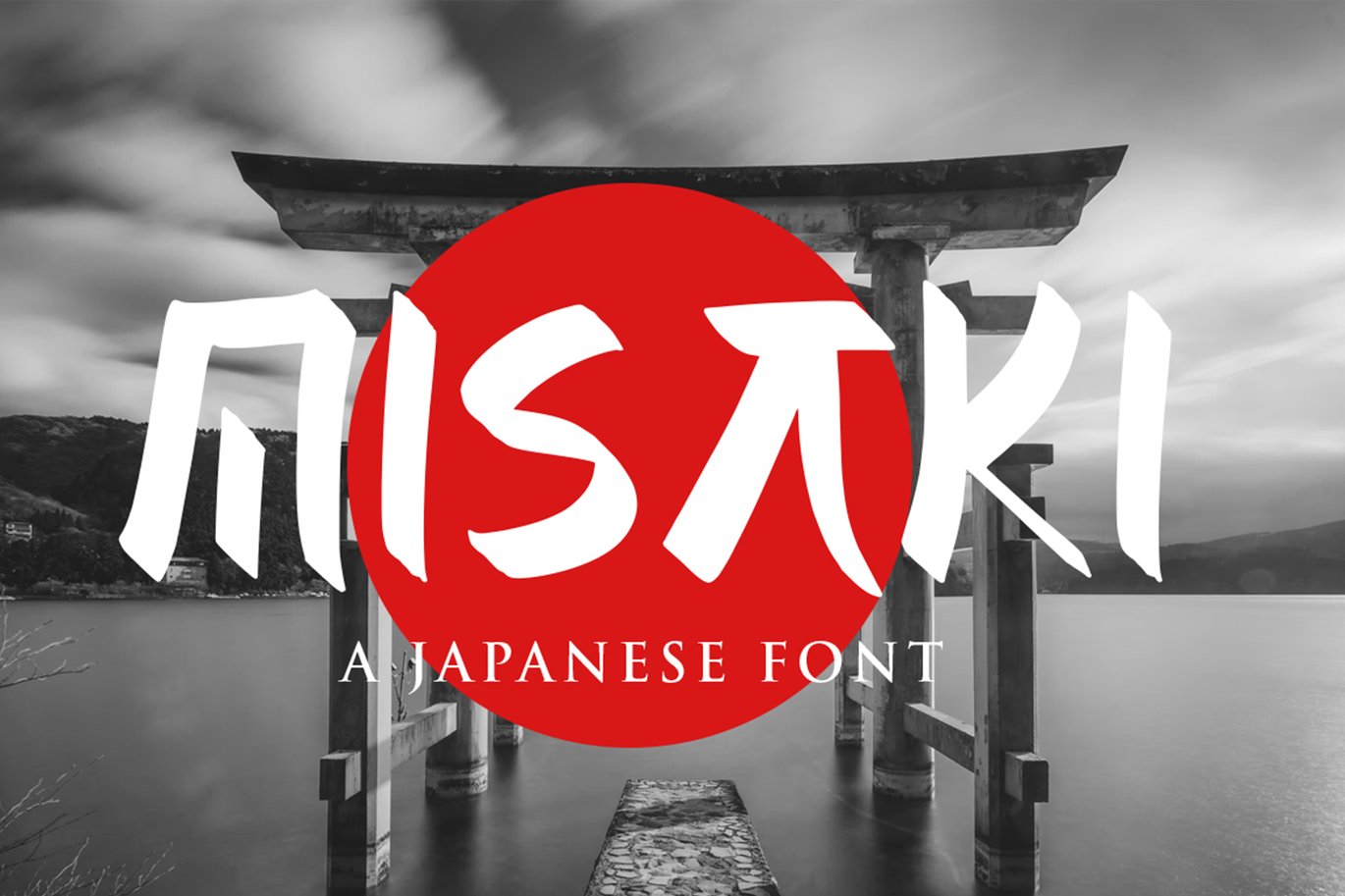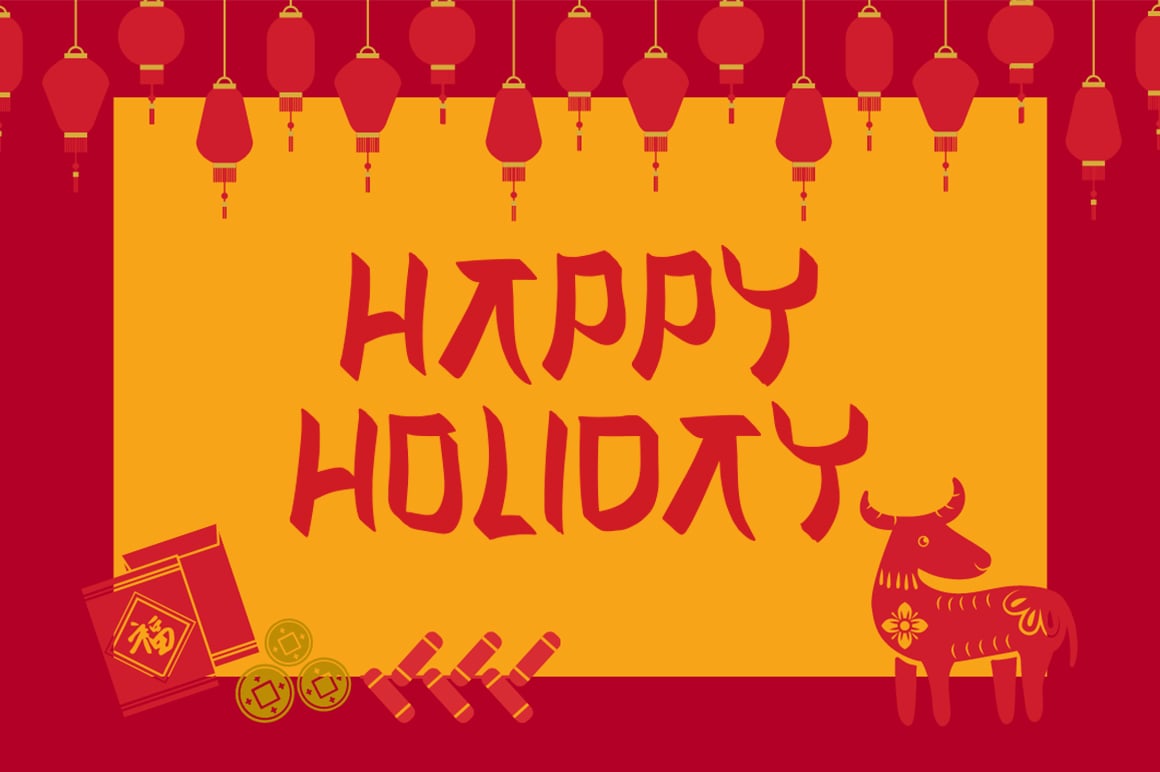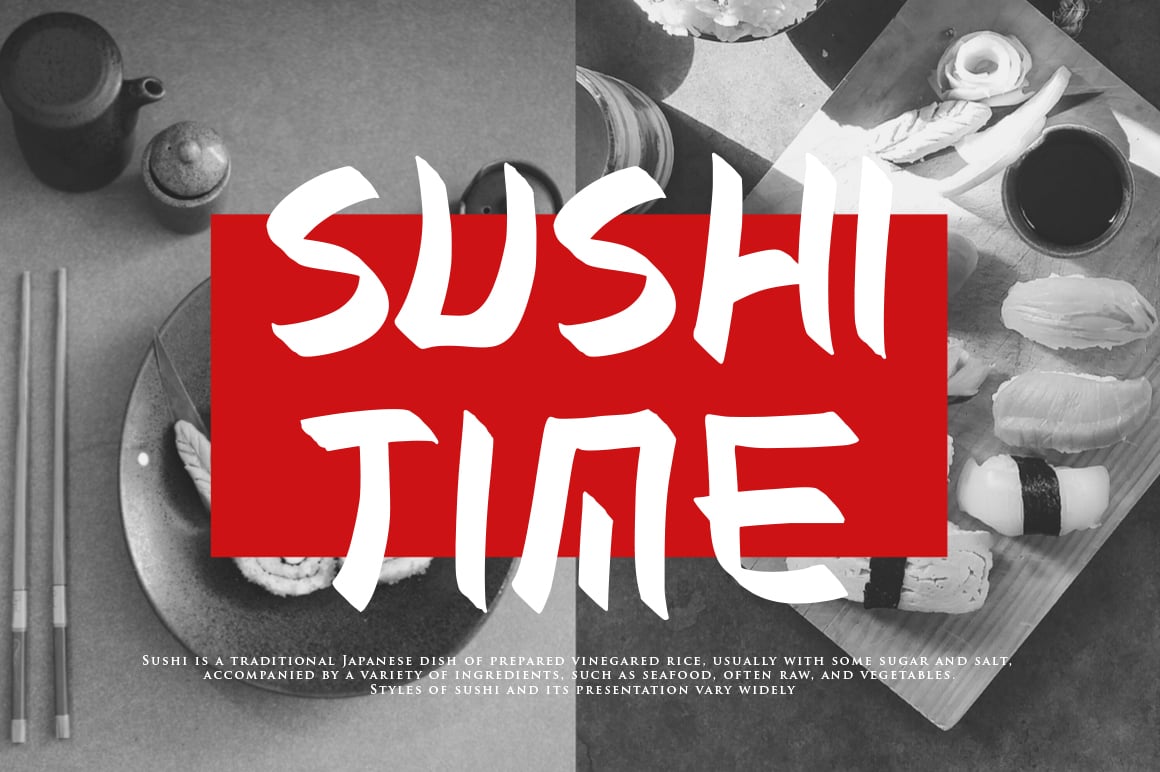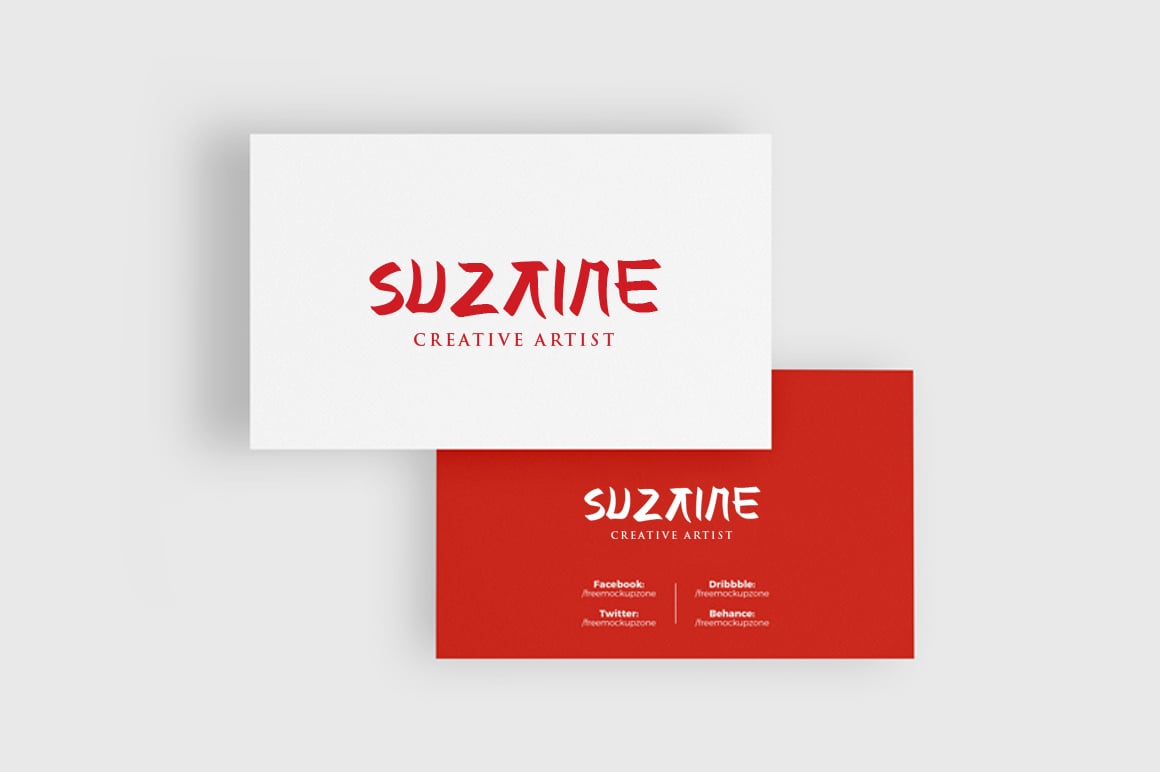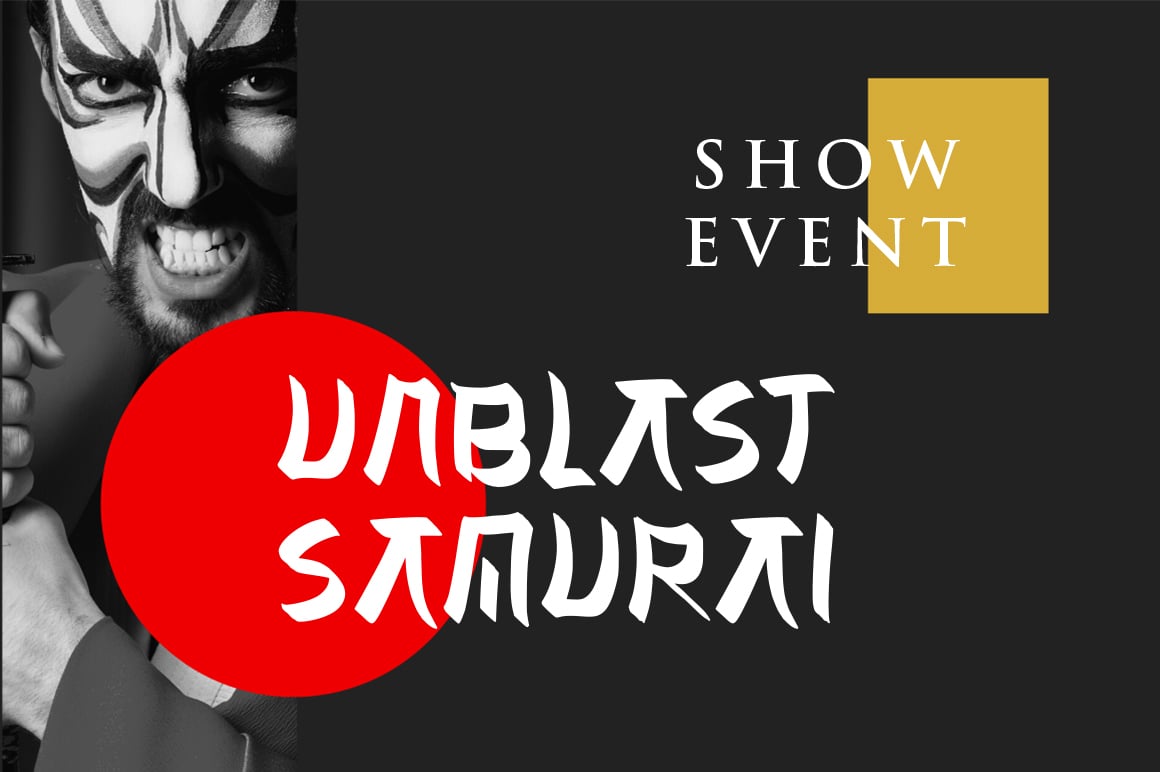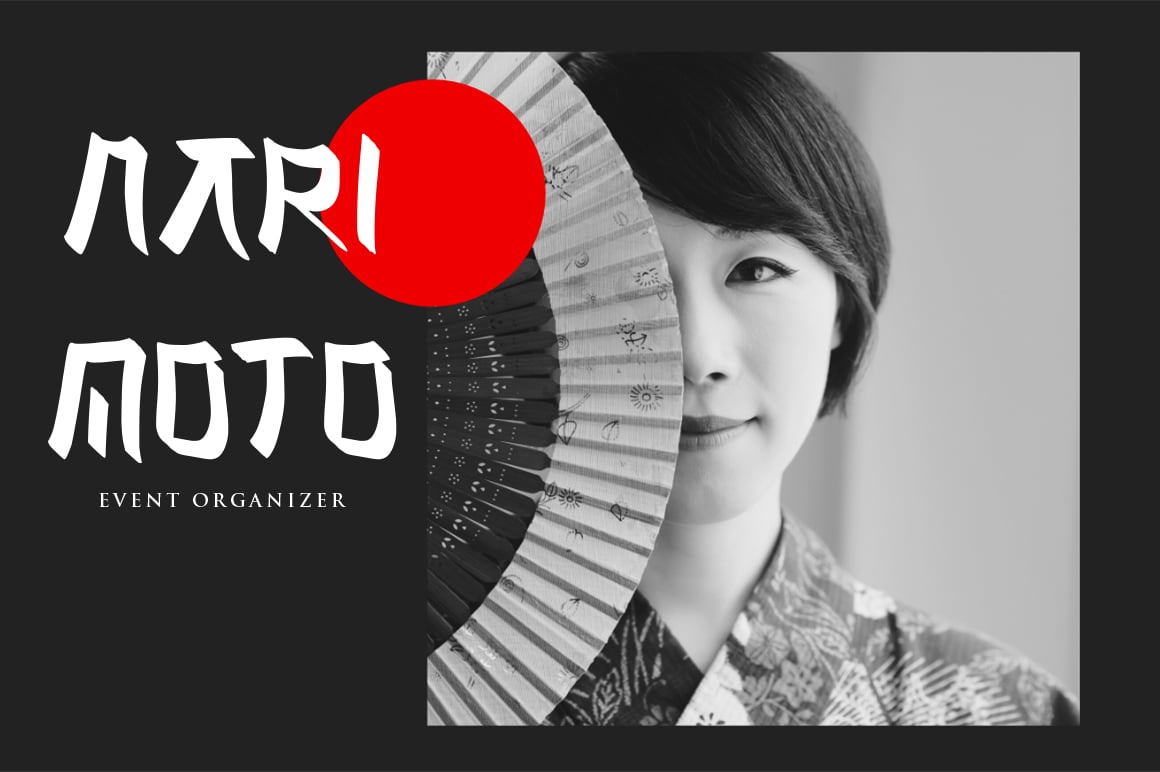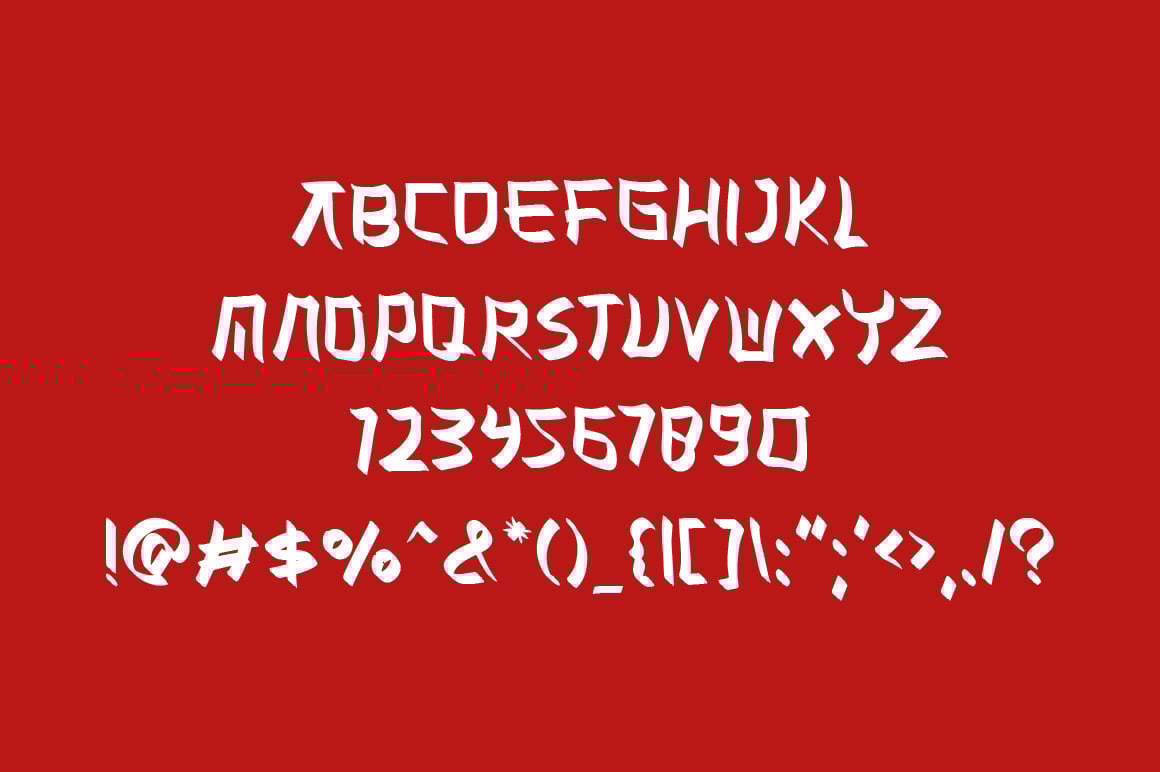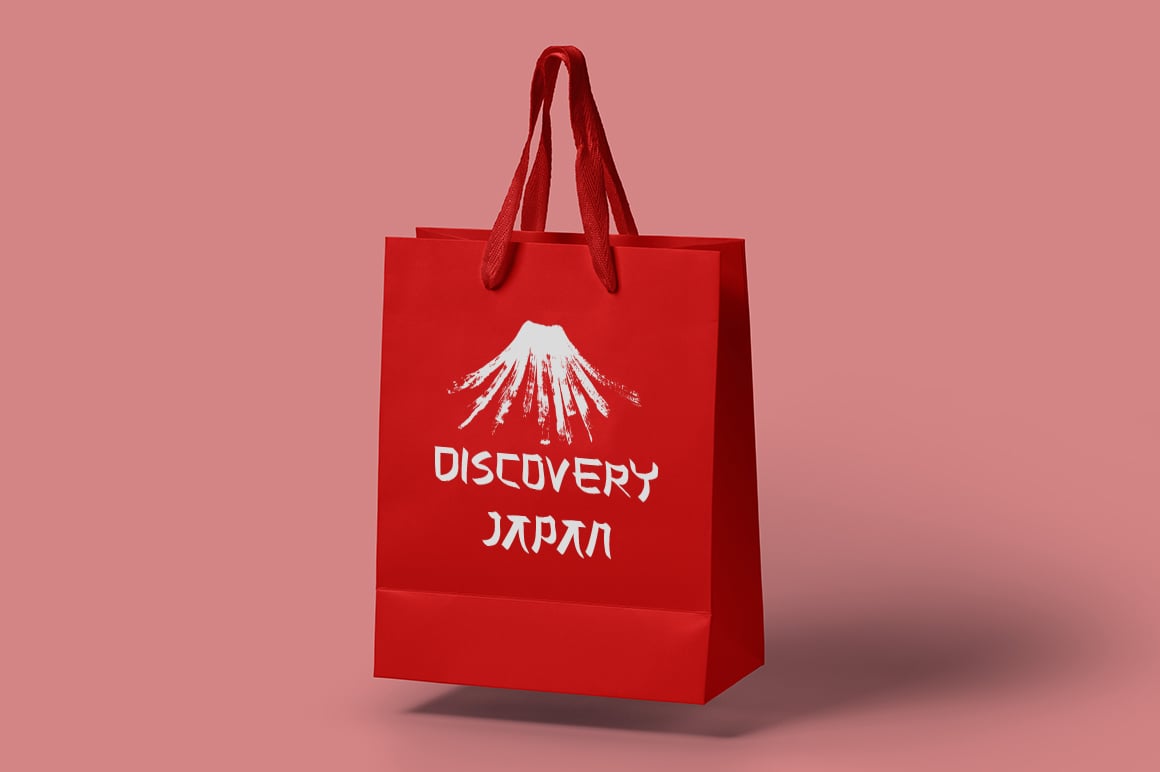
Misaki Japanese Font
Misaki is a simple Japanese-inspired display font. It has great readability and will add a striking touch to any design! It will look awesome on any design, print, or restaurant brand! Features: